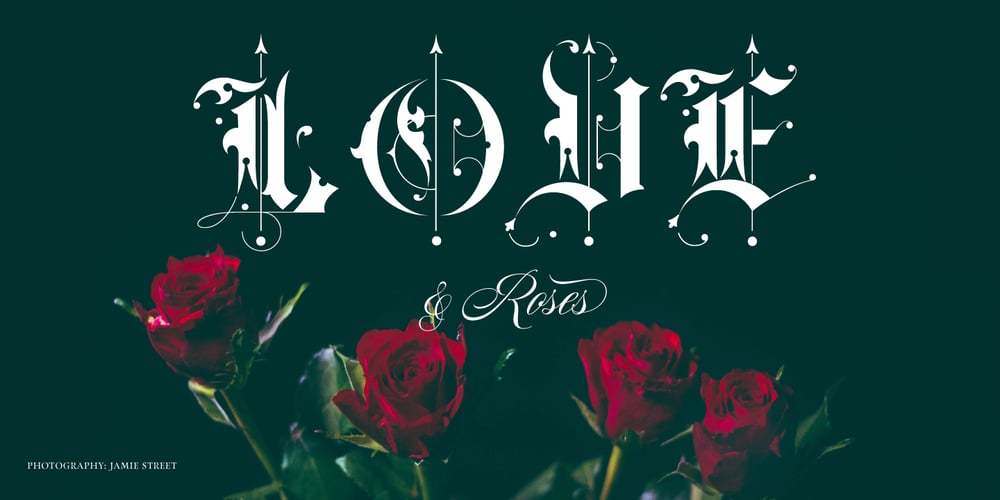
Blaq Font Family was designed by Giuseppe Salerno, Paco González and published by Resistenza. Blaq contains 2 styles and family package options. Blaq Font: a Bold Interpretation of TraditionDrawing inspiration from the timeless elegance of Henry W. Troy’s Trojan Text, Blaq Font emerges as a contemporary rendition, breathing new life into the classic blackletter aesthetic. Crafted with meticulous attention to detail, Blaq Font embodies the essence of ornamental sophistication, poised to make a resounding statement in the realm of typography.Blaq Font’s allure lies in its strikingly bold strokes and intricate embellishments, reminiscent of the Victorian Gothic era. Evoking a sense of grandeur and mystique, this font commands attention, particularly in headline compositions and design settings seeking a touch of the ‘masculine’ aesthetic. Its robust presence lends a sense of authority and gravitas to any project it graces.Rooted in the rich architectural heritage of the Victorian Gothic movement, Blaq Font pays homage to an era marked by intricate craftsmanship and opulent design. Originating in England during the 1740s, the Gothic revival captivated the imagination of designers and architects, experiencing a surge in popularity throughout the nineteenth century.Yet, Blaq Font transcends mere emulation, offering a contemporary interpretation that seamlessly melds tradition with innovation. Its bold contours and intricate flourishes reflect a fusion of past and present, making it a versatile choice for modern design applications while retaining the timeless charm of its historical influences.In essence, Blaq Font stands as a testament to the enduring allure of blackletter typography, bridging the gap between tradition and modernity with effortless grace. Whether adorning the pages of a prestigious publication or commanding attention in digital interfaces, Blaq Font’s bold presence ensures that it remains a defining element in the visual landscape of today’s design world.